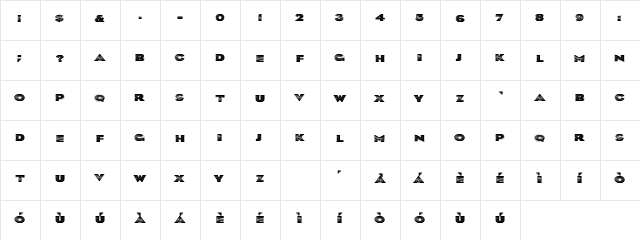
BlkLite Regular Font Preview
BlkLite Regular
BlkLite Regular Font Details
| Foundry | Xerographer Fonts |
| Designer | Xerographer Fonts Max Infeld |
Design Context for BlkLite Typeface
BlkLite is a composed and adaptable typeface that performs quietly and consistently across a wide range of design contexts.